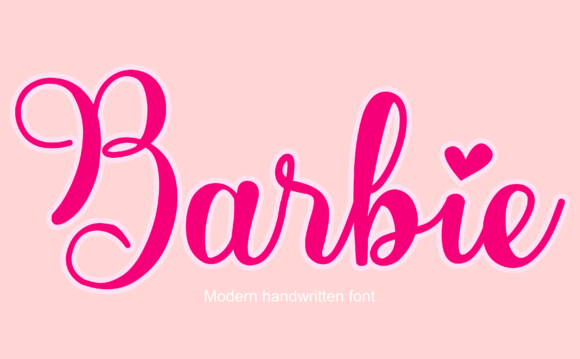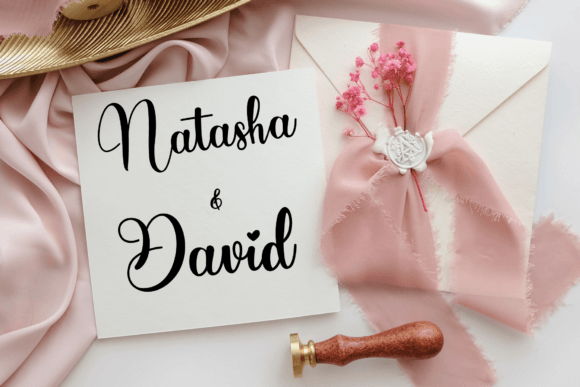
Barbie Font
Barbie feels equally charming and elegant. It looks stunning on wedding invitations, thank you cards, quotes, greeting cards, logos, business cards, and every other design which needs a handwritten touch.